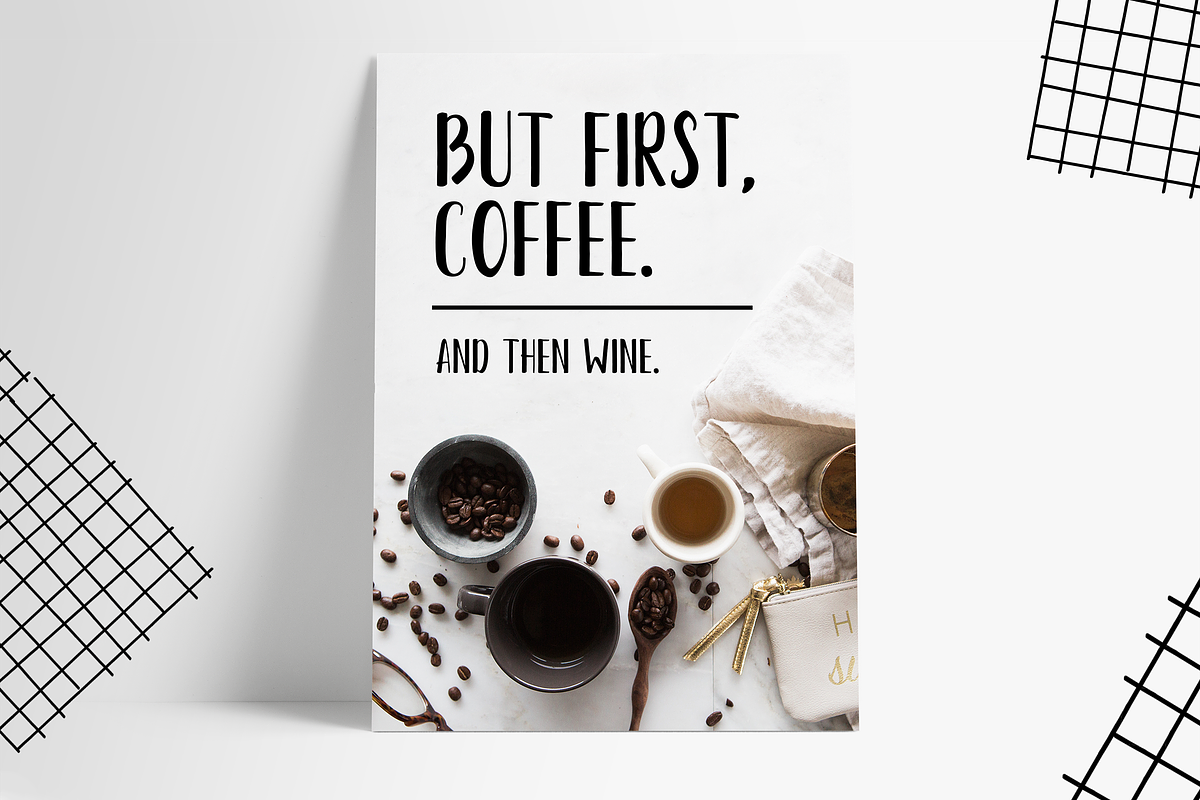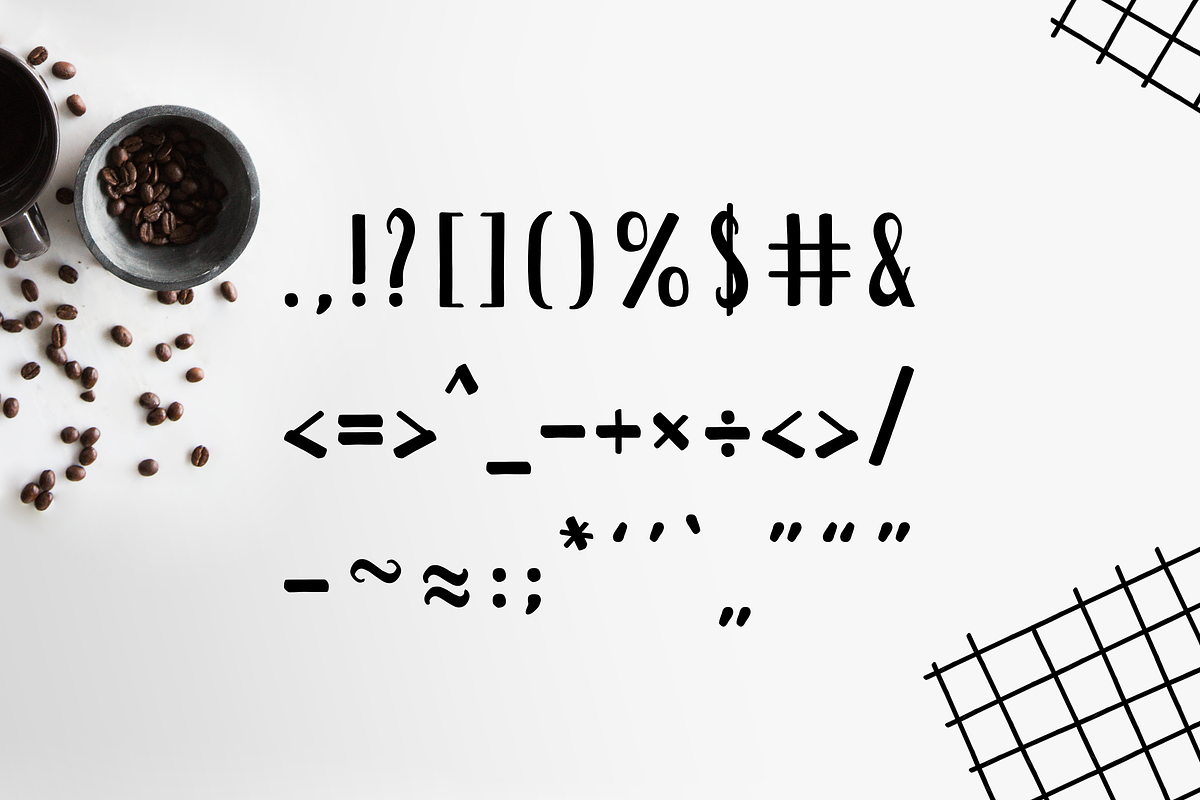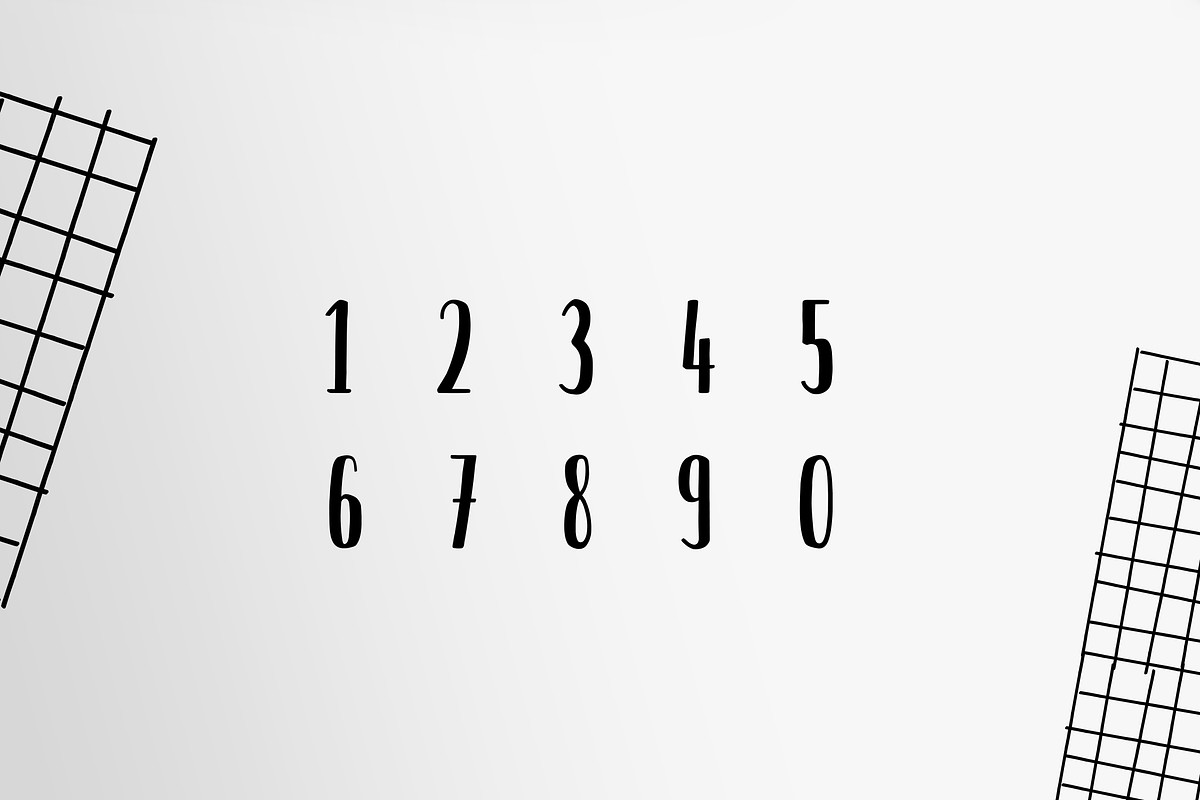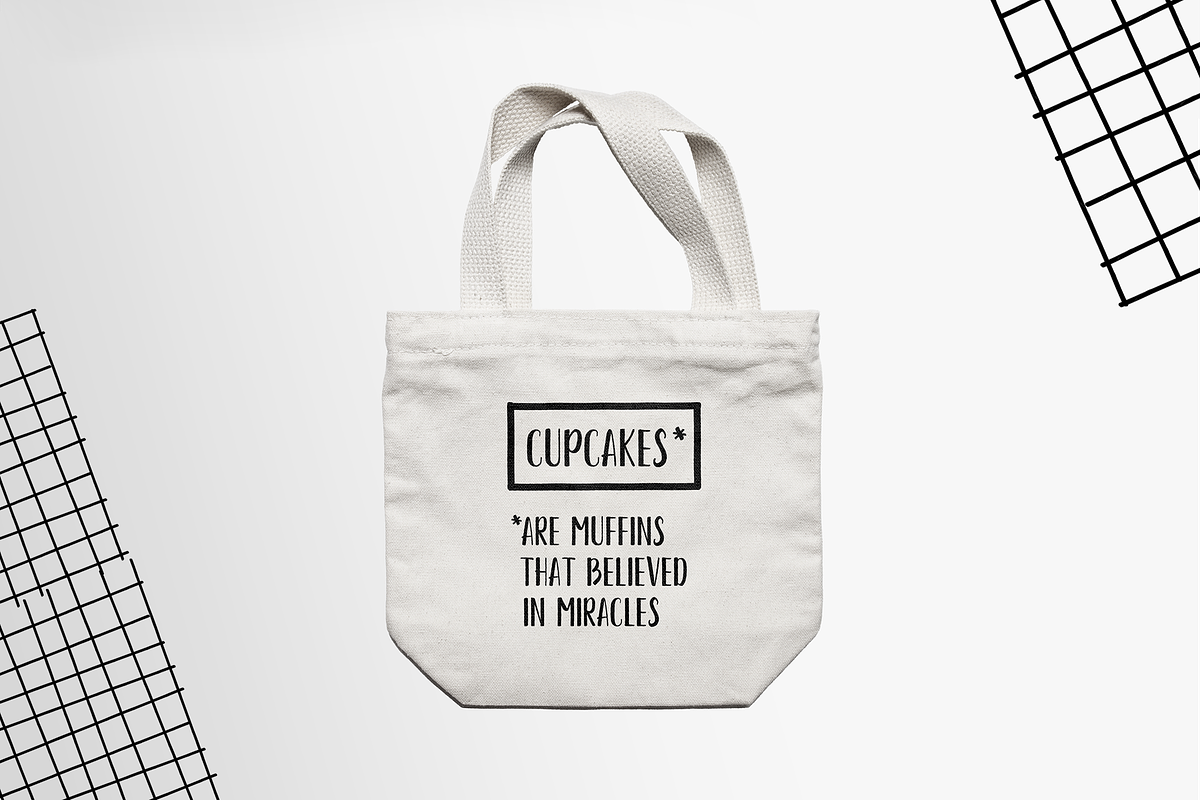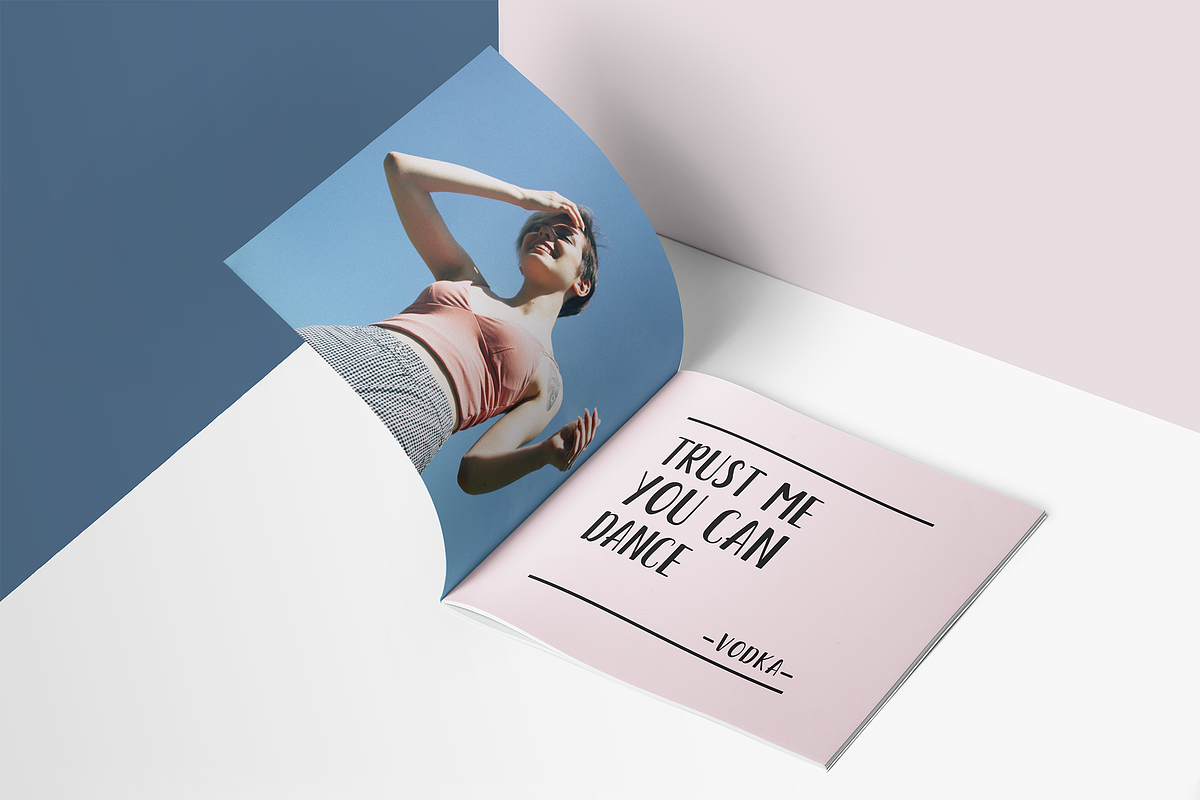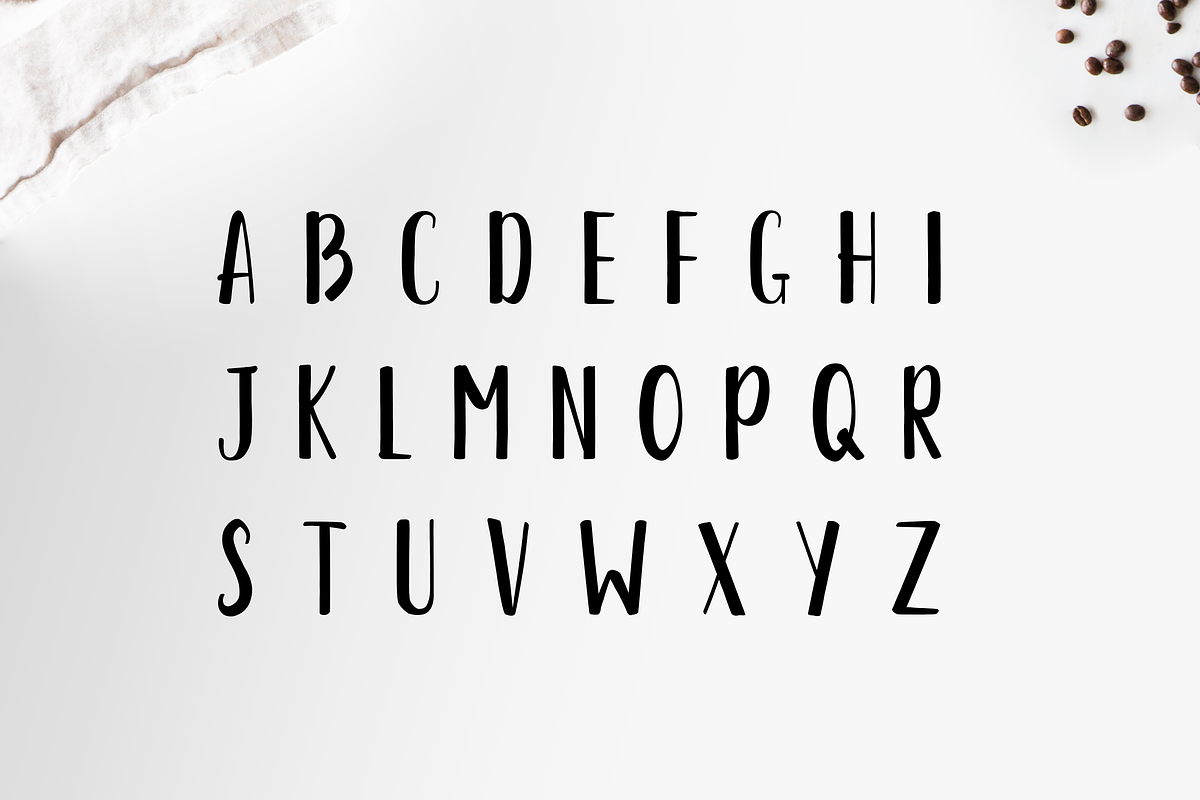
Austra Uppercase Font
Austra Uppercase Brush Font is a geometric brush font with a strong construction underneath. It works well for short descriptions, logo and brand identity designs, packaging, headlines, etc.
- Uppercase letters, numbers, symbols included.
Austra Uppercase Font by Wild Ones fits naturally into Branding, posters, packaging, typography.